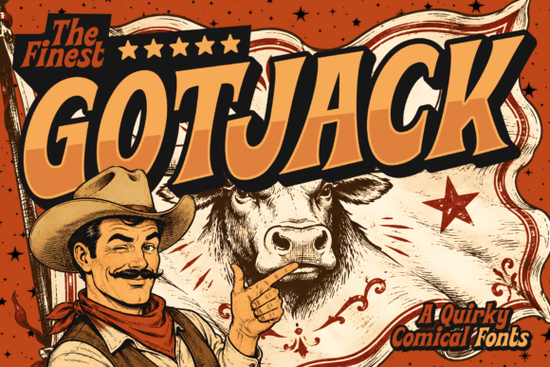
If you're working on a retro-inspired design whether it’s a bold logo, a vintage-style t-shirt, or a comic book cover you know how hard it can be to find a font that truly captures that 1970s–80s energy without looking like a cheap imitation. That’s where Gotjack Font comes in. It’s not just another display typeface; it’s a carefully crafted tool that blends authentic hand-drawn quirks with modern usability, making it ideal for creators who want real personality in their typography.
Gotjack stands out because it doesn’t try to be subtle. With its ultra-bold weight, organic curves, and slight serif details, it channels the rebellious spirit of classic comic books and retro advertising but in a way that still works beautifully on today’s digital platforms and print materials. Whether you’re designing merch for your online store or creating eye-catching social media graphics, this font helps your message cut through the noise.
What makes Gotjack different from other retro fonts?
Many “vintage” fonts lean too heavily into gimmicks or lack the structural integrity needed for professional use. Gotjack avoids both pitfalls. It’s built with:
- True-to-era aesthetics: Inspired by actual 70s and 80s comic lettering, not just a modern interpretation.
- Subtle serif touches: These add stability and character without making the font feel stiff or outdated.
Compared to similar options like Jersey Retro Grunge or Wildberry, Gotjack leans more into comic-book expressiveness than grunge texture or playful whimsy. If your project needs that unmistakable “cowboy-cool” attitude think action titles, bold branding, or nostalgic packaging it’s a stronger fit.
Where does Gotjack work best?
This font shines in high-impact, short-text scenarios. Think of it as your go-to for anything that needs to grab attention instantly:
- Logos and brand identities for retro-themed businesses or pop-culture products
- YouTube thumbnails and Instagram posts where stopping the scroll is key
- T-shirt designs, stickers, and product labels that benefit from loud, clear typography
- Book covers, zines, and comic panels aiming for genuine period authenticity
It’s less suited for body text or minimalist designs but that’s by design. Gotjack is a display font first and foremost, and it excels exactly where it’s meant to be used.
How to style Gotjack for maximum effect
To really lean into its comic-book roots, pair Gotjack with visual treatments that echo classic printing techniques:
- Add a heavy drop shadow or thick vector outline for depth
- Use warm, saturated colors like burnt orange, mustard yellow, or deep cream
- Layer it over halftone textures or distressed backgrounds for added grit
And don’t forget about pairing. While Gotjack holds its own as a headline font, it works well alongside cleaner sans-serifs for contrast. If you’re exploring other quirky options, check out Lovers Barbie for a softer retro vibe or Noby for something more geometric and modern.
Who should use Gotjack?
This font is perfect for:
- Print-on-demand sellers creating retro apparel or novelty mugs
- Indie comic artists looking for authentic lettering
- Small business owners building a nostalgic brand (think record shops, diners, or arcade bars)
- Social media creators who need thumbnails that pop
- Crafters and hobbyists making custom signs, stickers, or party decor
If your project calls for confidence, nostalgia, and a little bit of swagger, Gotjack delivers all while remaining technically reliable across software and devices.